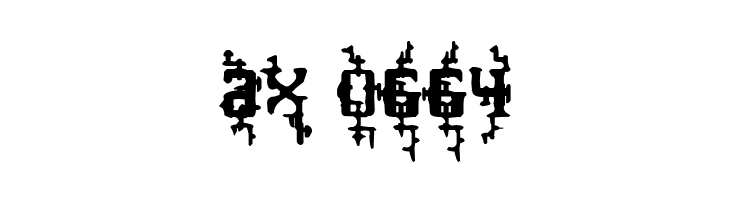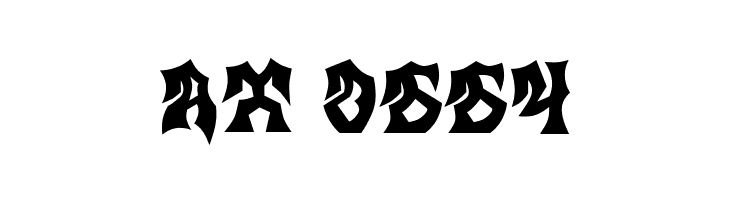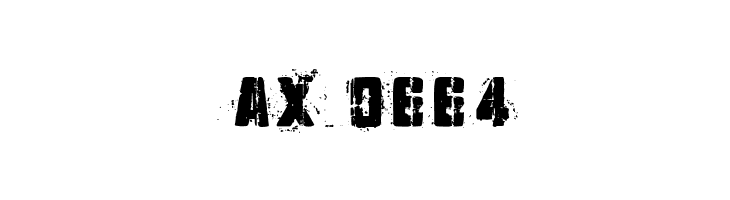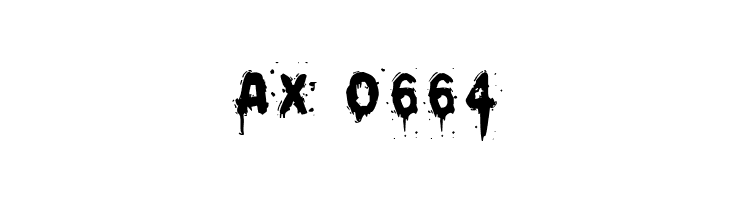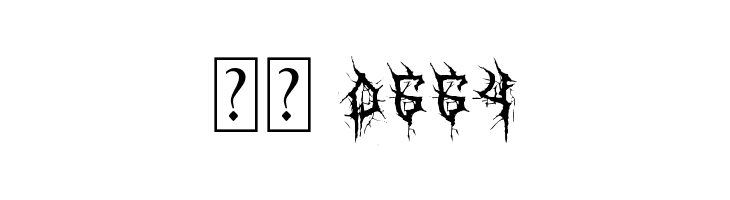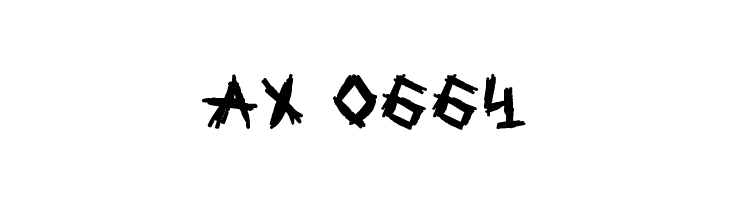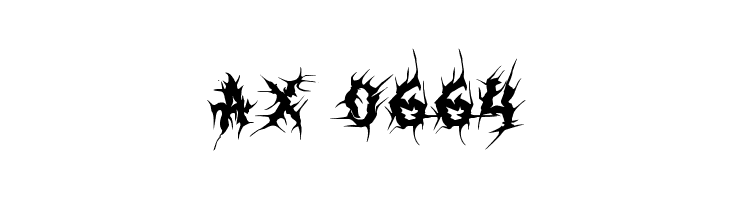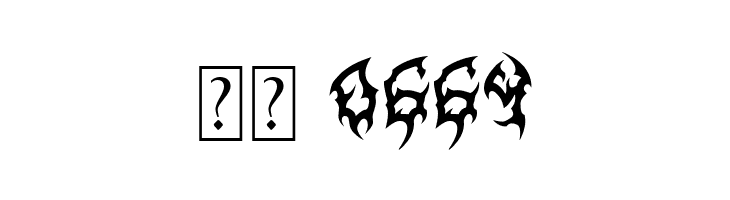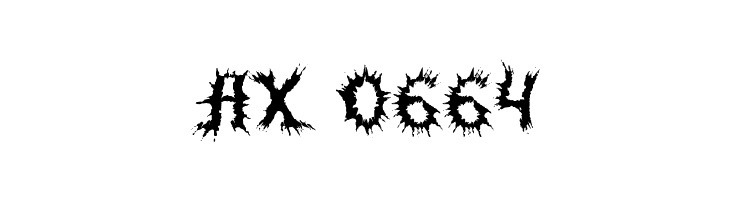
A gothic-inspired font with thorn-like embellishments and bold, dramatic strokes.
A bold, thorny font with a gothic, horror-inspired aesthetic.
A bold, aggressive font with sharp, jagged edges and a tribal flame-like design.
An edgy, thorn-like font with a chaotic and aggressive style.
A grungy, dripping font with a bold, edgy aesthetic.
A bold, distressed font with a grunge, urban aesthetic.
A rugged, hand-drawn font with jagged edges and a mysterious, chaotic style.
A jagged, eerie font ideal for horror themes.
A thorny, jagged font with a dark, edgy aesthetic.
A dynamic, expressive handwritten font with flowing, cursive letterforms.
A playful and artistic handwritten font with flowing, interconnected letterforms.
A quirky, hand-drawn dingbat font with abstract illustrations.
A quirky, illustrative display font with characters depicted as abstract stick-figure birds.
A futuristic, mechanical font with bold, angular letterforms and geometric shapes.
A classic serif font with elegant italics and refined serifs.
A whimsical, hand-drawn medical icon font with bold, playful designs.
A decorative font with medical-themed icons and symbols.
Cartoonish medical-themed decorative display set.
A playful, cartoon-style icon set with medical themes.
A bold, hand-drawn font with a rough, edgy style.
Hand-drawn, illustrative font made from meeting scene sketches.
A bold, fluid script font with interconnected letters and expressive strokes.
A bold, textured brush script font with dynamic strokes and artistic flair.
A whimsical and decorative script font with playful, flowing letterforms.